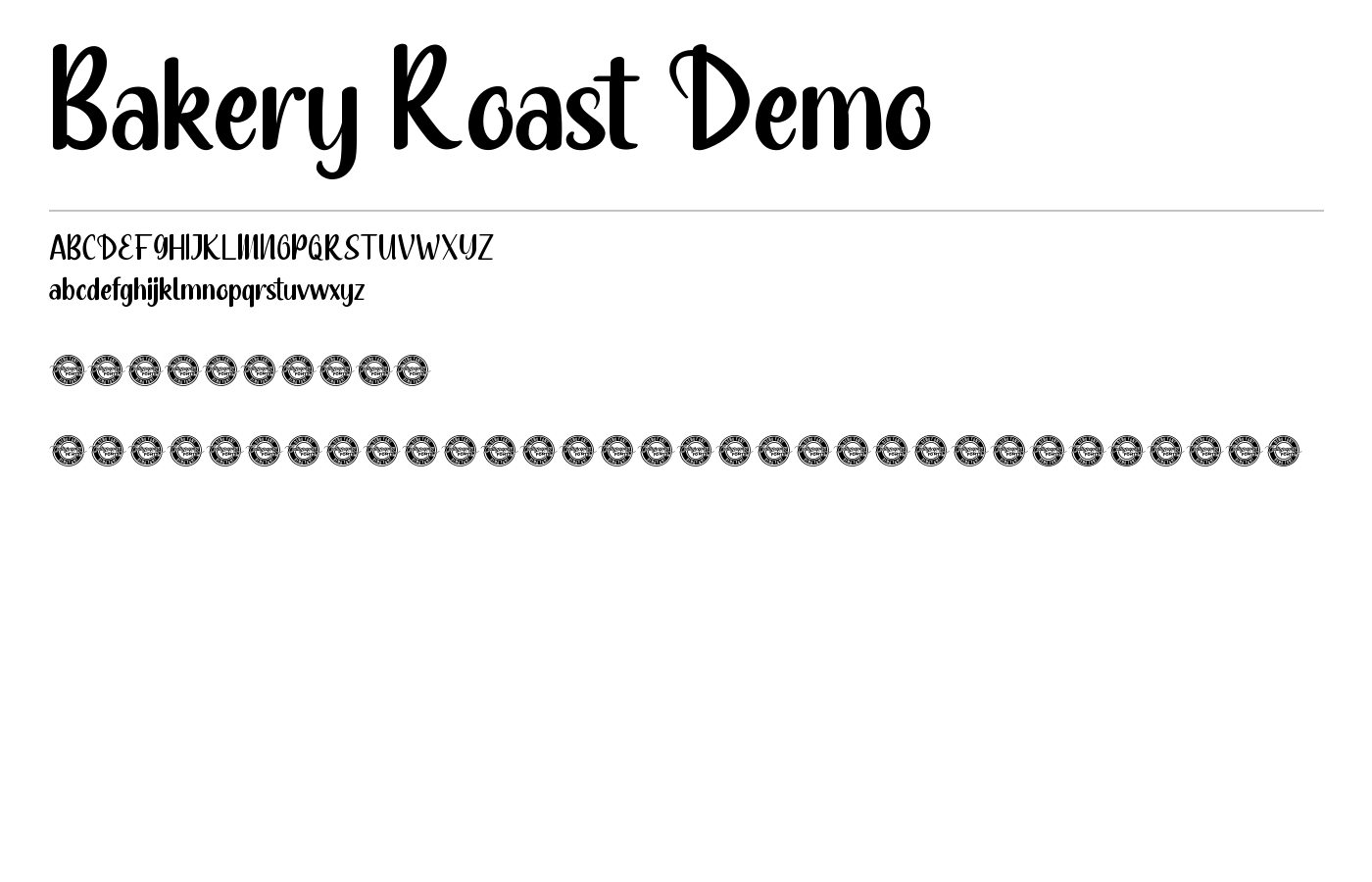
Bakery Roast Demo is a playful, handwritten-style font with a lively and informal vibe, featuring tall, narrow letterforms and smooth, rounded edges. Its unique, quirky character shapes and consistent stroke weight make it ideal for branding, packaging, and headlines where a warm, approachable feel is desired. This font works especially well for creative projects like bakery logos, children’s products, or casual event invitations.
Bakery Roast Demo Font
About Bakery Roast Demo Font